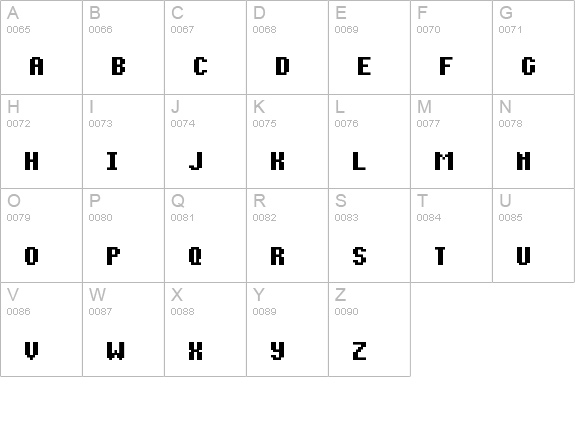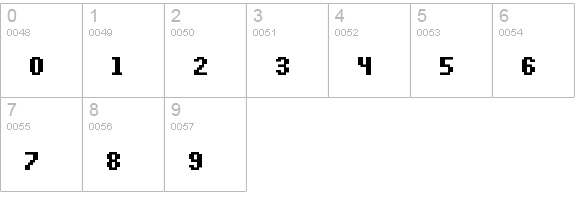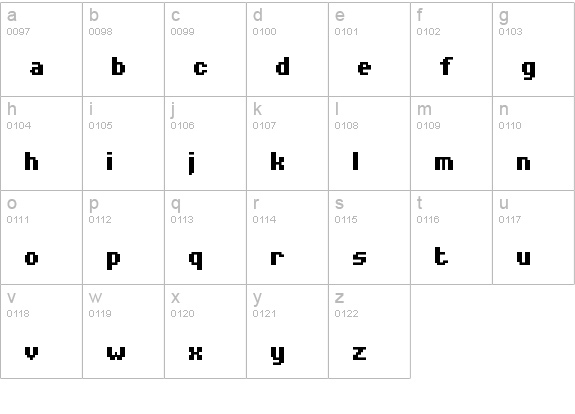
Notalot35 Regular Font Details
Notalot35 Regular is the standard, neutral variant in the Notalot35 typeface family \xE2\x80\x94 well suited to general body text, paragraphs, and standard typographic work.
Notalot35 Regular is a versatile and stylish font that exudes a sense of modernity and elegance. With its clean lines and balanced proportions, this typeface is perfect for a wide range of design projects, from branding to editorial layouts. Its sleek and sophisticated appearance makes it ideal for creating professional and refined designs. This font offers a harmonious balance between classic and contemporary design elements, making it a timeless choice for any project. Whether you are working on a logo, website, or print materials, Notalot35 Regular will elevate your work with its understated sophistication. Best of all, Notalot35 Regular is available for free download at FontsMarket.com. This means that you can access this high-quality font without any cost, making it a valuable addition to your font library. Don't miss out on the opportunity to enhance your designs with Notalot35 Regular – download it today and see the difference it can make in your creative projects.